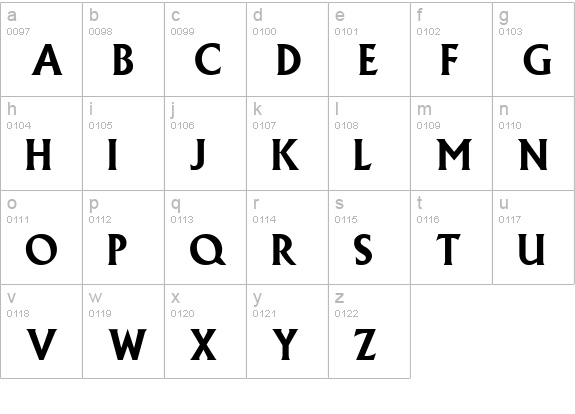
Alexander Bold Font Details
Alexander Bold is a strong, high-contrast variant in the Alexander typeface family \xE2\x80\x94 well suited to headlines, attention-grabbing titles, and strong calls-to-action.
Introducing Alexander Bold font, a striking and versatile typeface that exudes confidence and sophistication. With its bold and commanding presence, this font is perfect for making a statement in your designs. The strong lines and sharp angles of Alexander Bold add a modern touch to any project, while still maintaining a sense of elegance and class. What makes Alexander Bold font even more appealing is that it is available for free download at FontsMarket.com. This means that you can easily add this powerful font to your collection without breaking the bank. Whether you're working on a branding project, poster design, or any other creative endeavor, Alexander Bold font is sure to make a bold impression. Elevate your designs with this stunning typeface today!